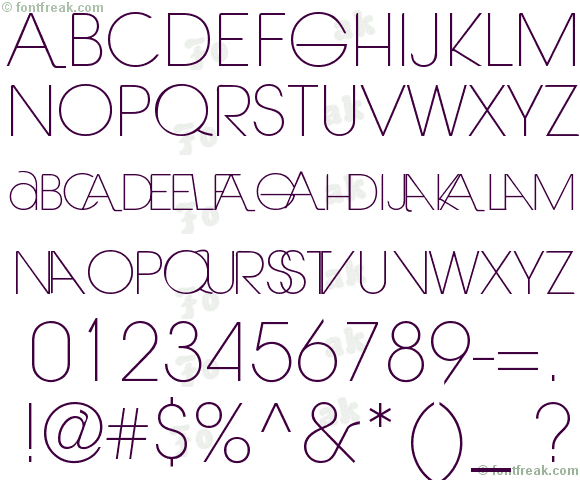
Laranjha-Pro-Fraco
Laranjha-Pro-Fraco, designed by Alvaro Thomaz, is a captivating display font that combines modern aesthetics with a playful flair. This unique typeface falls into the sans-serif category, characterized by its clean lines and minimalistic design. The stroke weight is consistent, offering a balanced appearance, while the overall spacing ensures readability without sacrificing style. The font features subtle, rounded edges that contribute to its friendly and approachable vibe.
Ideal for various creative projects, Laranjha-Pro-Fraco shines in applications such as restaurant menus, where its legibility can enhance the dining experience. It is also a great choice for wedding invitations, allowing couples to convey a sense of elegance and warmth. Additionally, this font works wonderfully for branding materials, helping small business owners create a memorable identity. Content creators can also benefit from its versatility, using it in social media graphics or blog headers to draw attention and engage audiences.
The target audience for Laranjha-Pro-Fraco includes graphic designers seeking innovative type options, as well as small business owners and content creators looking to enhance their visual communication. Its design caters to those who appreciate a mix of contemporary style and charm, making it suitable for both professional and personal projects.
What makes the Laranjha-Pro-Fraco font stand out is its ability to merge functionality with artistic expression. Its clean yet playful design ensures it can be used across a diverse range of applications without losing its distinctive character. For those interested in exploring this unique typeface, the Laranjha-Pro-Fraco font free download offers an excellent opportunity to elevate your design projects with a touch of creativity and flair.